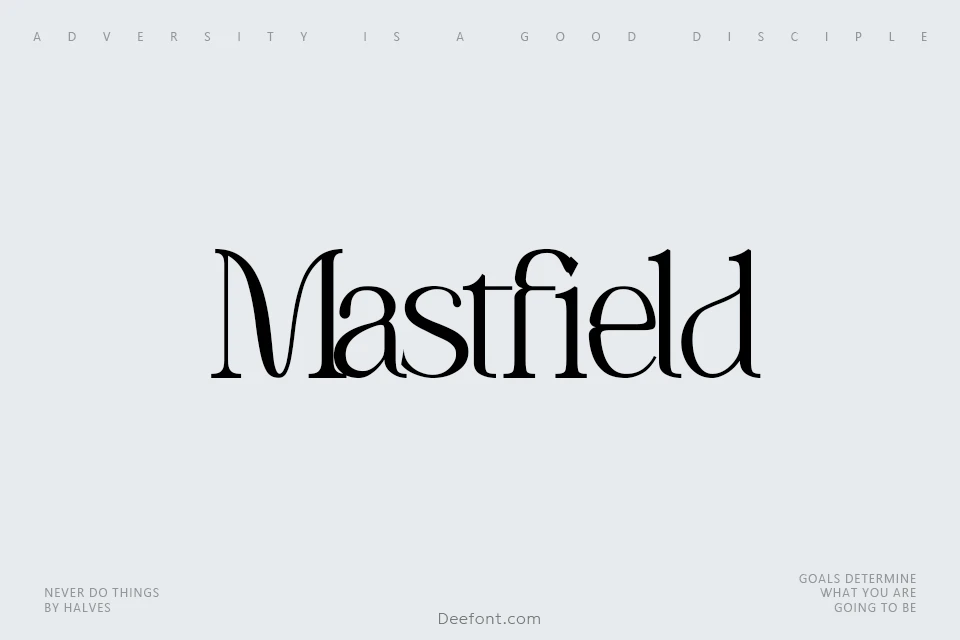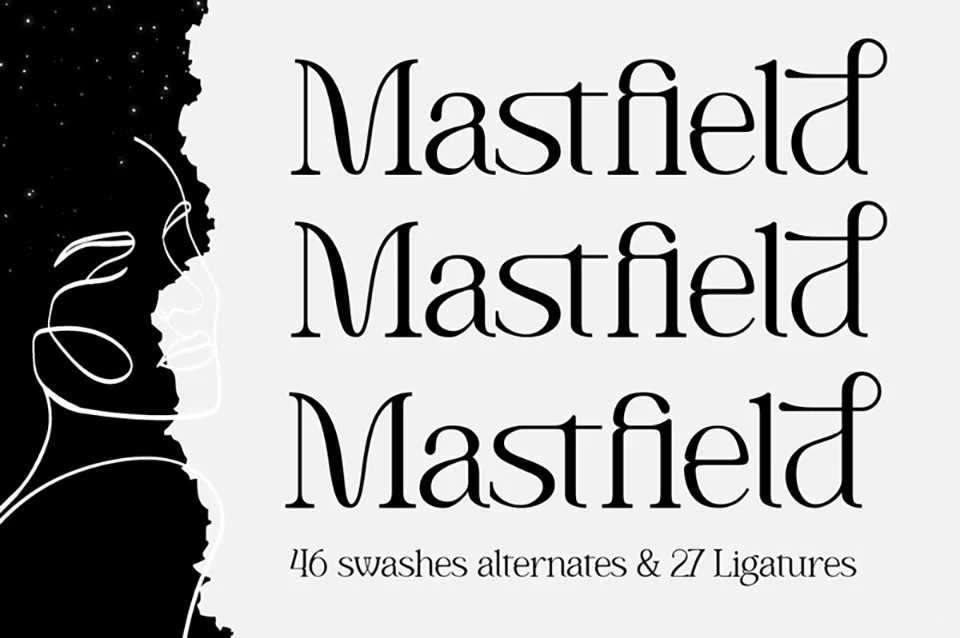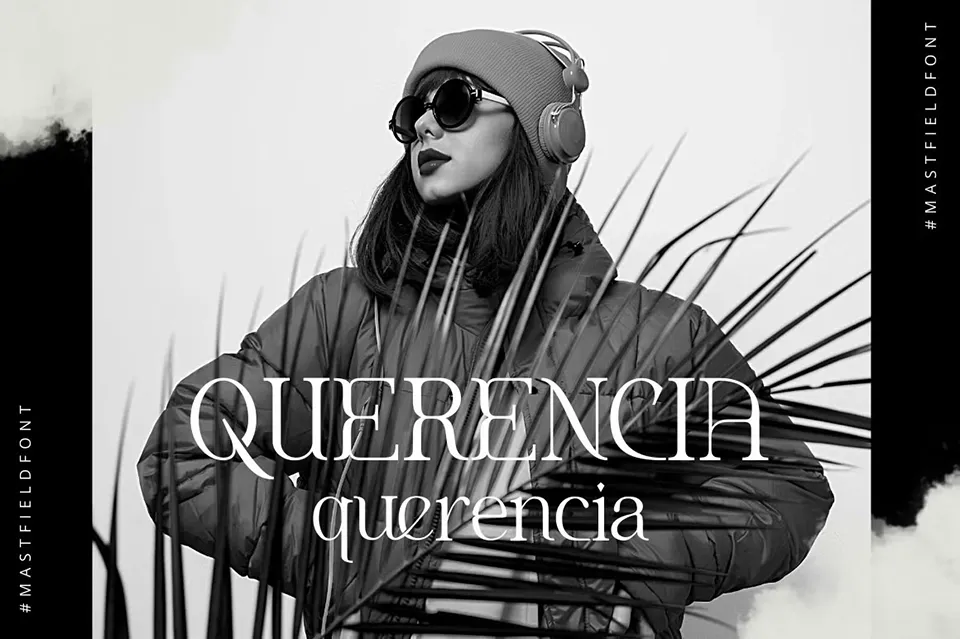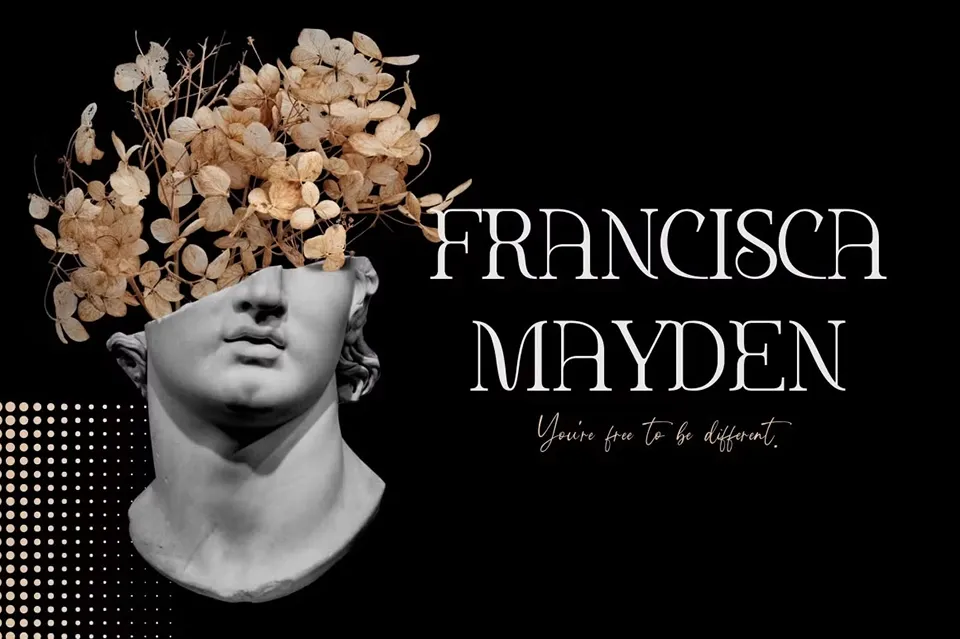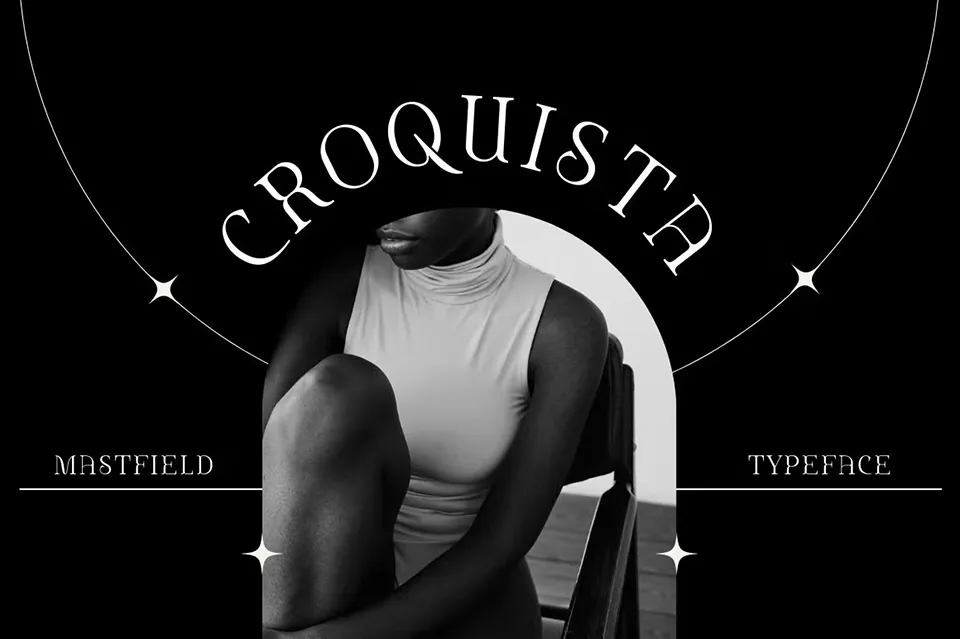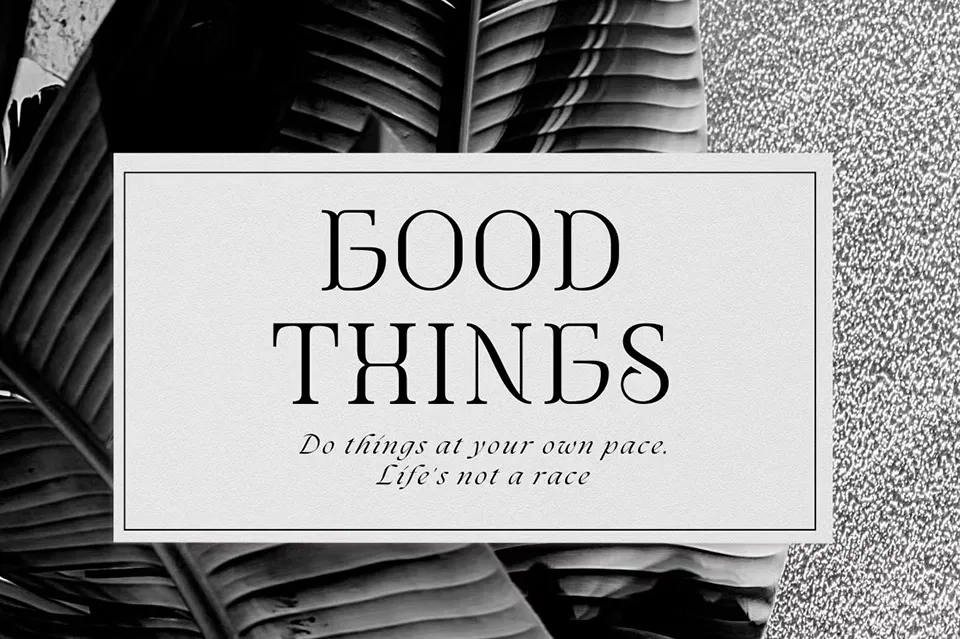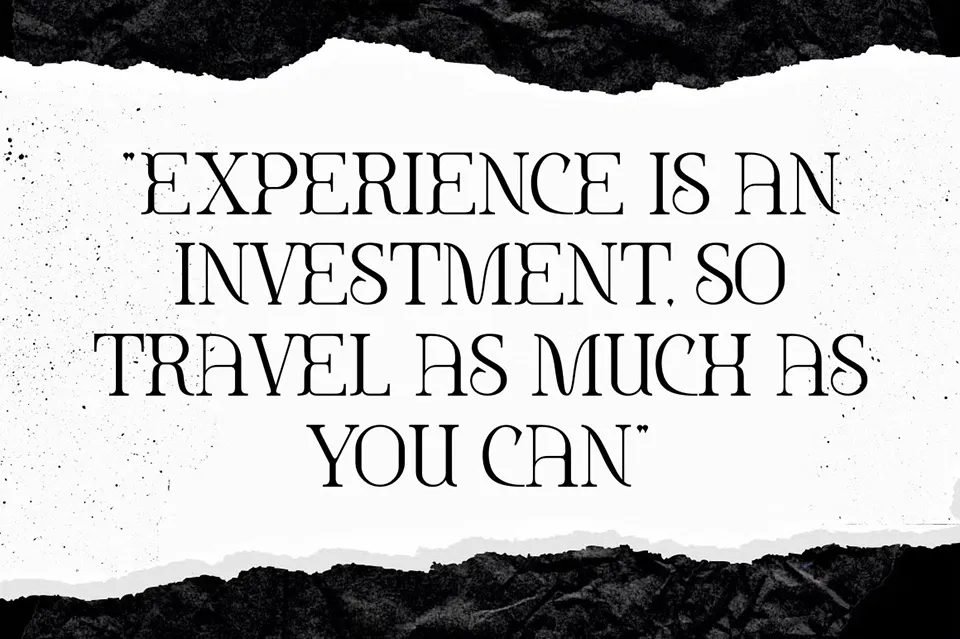
Mastfield Font
Mastfield Font is a modern serif typeface featuring elegant swashes, alternates, and ligatures, making it ideal for high-end branding, editorial designs, and creative projects. Its unique character shapes and stylish details offer versatility and sophistication for both digital and print applications.